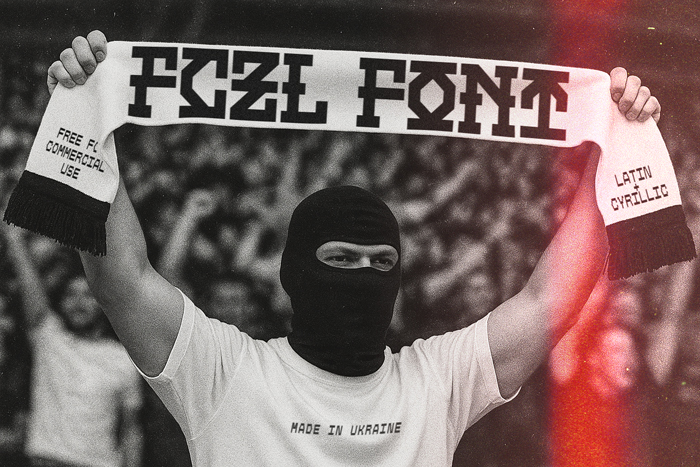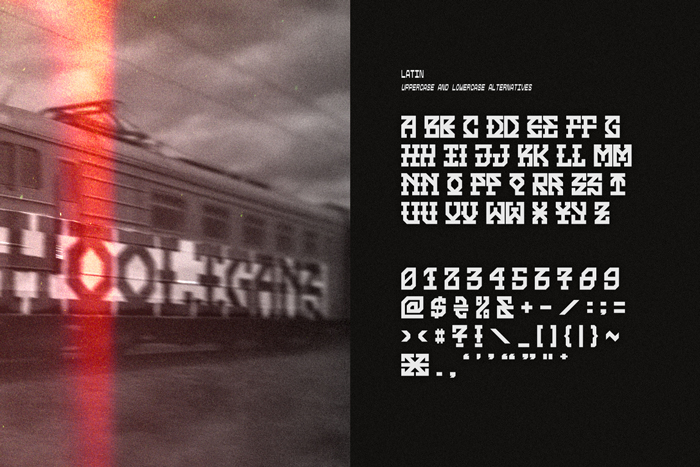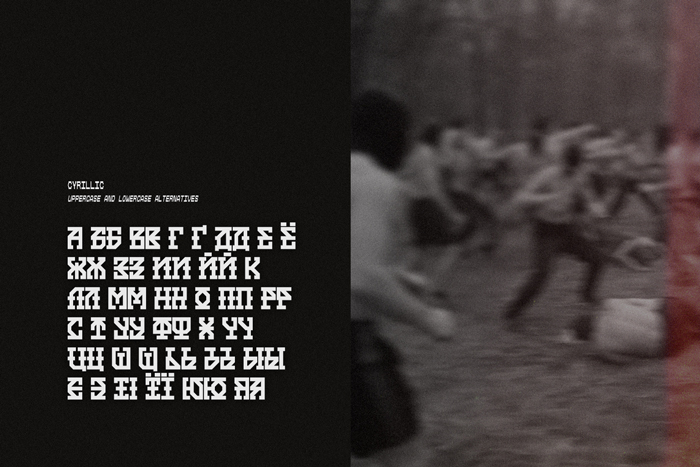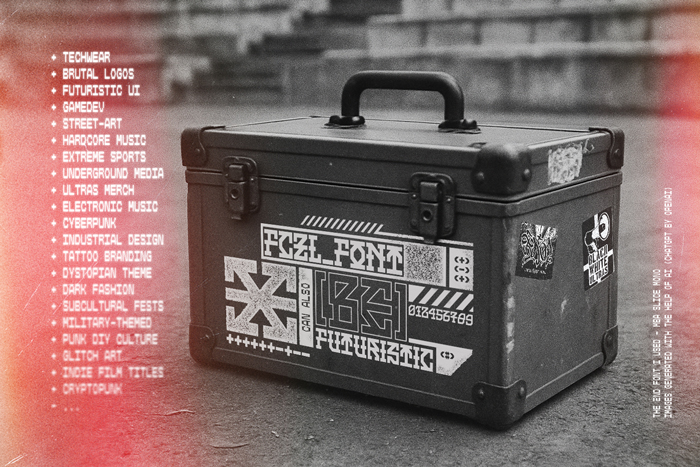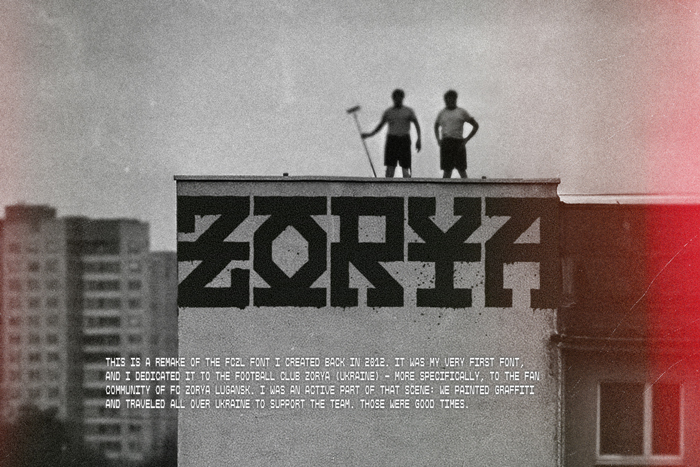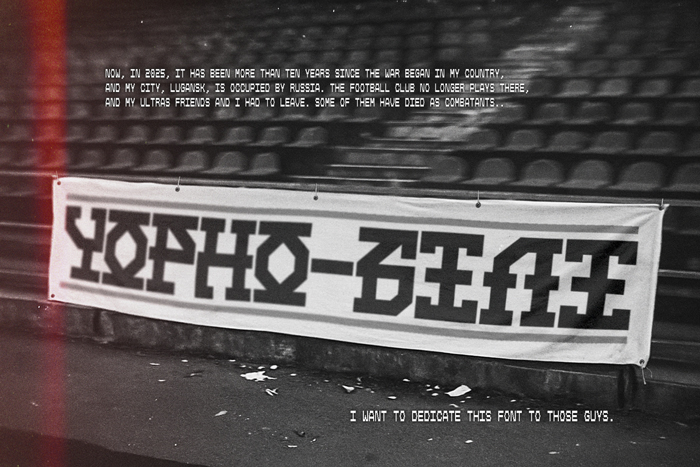
• FCZL font is a modular geometric typeface inspired by the aesthetics of football fan culture and graffiti.
This is a remake of the FCZL font I created back in 2012. It was my very first font, and I dedicated it to the football club Zorya — more specifically, to the fan community of FC Zorya Lugansk (UA). I was an active part of that scene: we painted graffiti and traveled all over Ukraine to support the team. Those were good times.
Now, in 2025, it has been more than ten years since the war began in my country, and my city, Lugansk, is occupied by Russia. The football club no longer plays there, and my ultras friends and I had to leave. Some of them have died as combatants. I want to dedicate this font to those guys.
I’ve redesigned many of the letters, making them more readable and consistent. The font is no longer monospaced, which allowed for a more appealing Cyrillic set. Still, the font is far from perfect, and I welcome any feedback and critique from the FontStruct community.